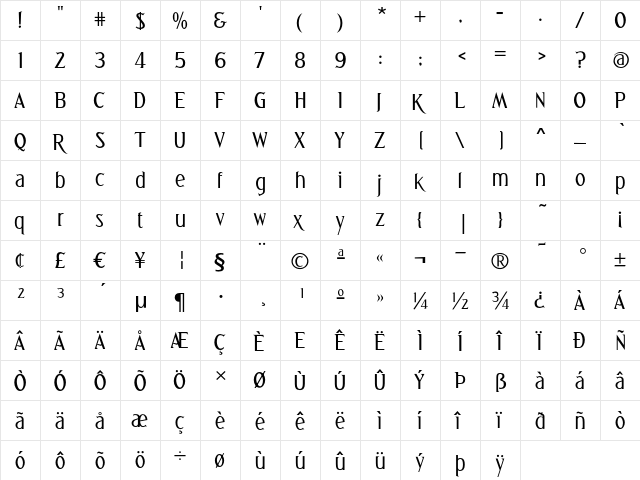
Greetings Regular
Design Context for Greetings Typeface
Greetings takes a measured approach to typography — its balanced proportions and neutral character make it a reliable workhorse for both digital and print work.